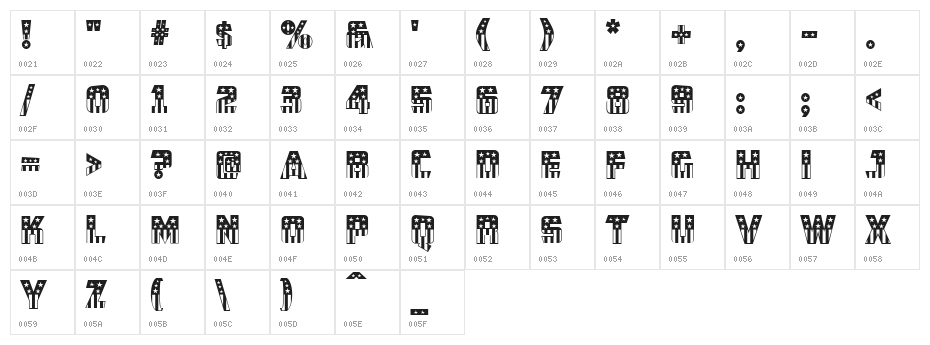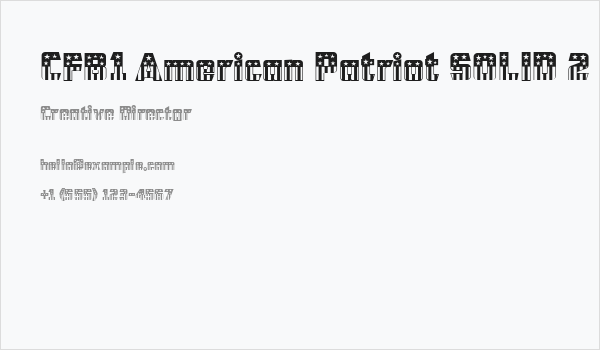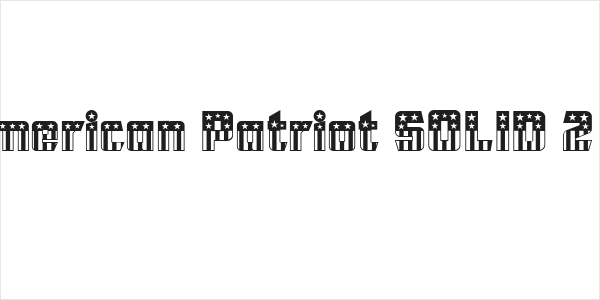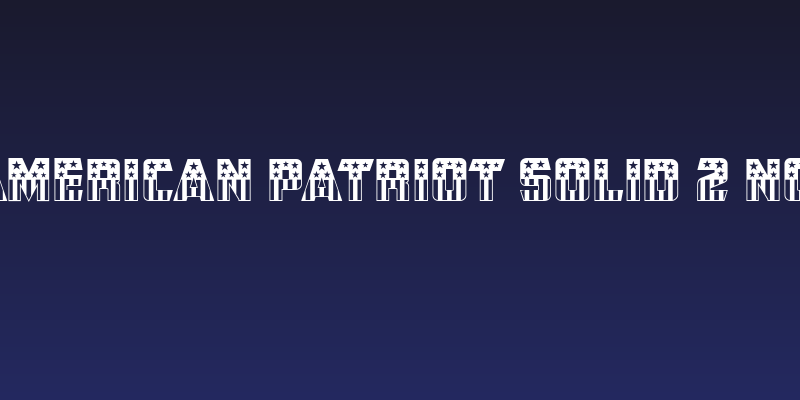
CFB1 American Patriot SOLID 2 Normal Font
CFB1 American Patriot SOLID 2 Normal Description
This font features a bold, decorative style with a patriotic theme, incorporating stars and stripes reminiscent of the American flag. The uppercase and lowercase letters, as well as numbers and special characters, are designed with a solid, impactful appearance. The characters are filled with alternating patterns of stars and stripes, creating a visually striking effect. This font is ideal for projects that require a strong, nationalistic aesthetic, such as event posters, banners, or themed merchandise. The design is both eye-catching and thematic, making it suitable for attention-grabbing headlines or logos.
| Proposed Projects | Ideal for patriotic event posters, themed merchandise, and attention-grabbing headlines. |